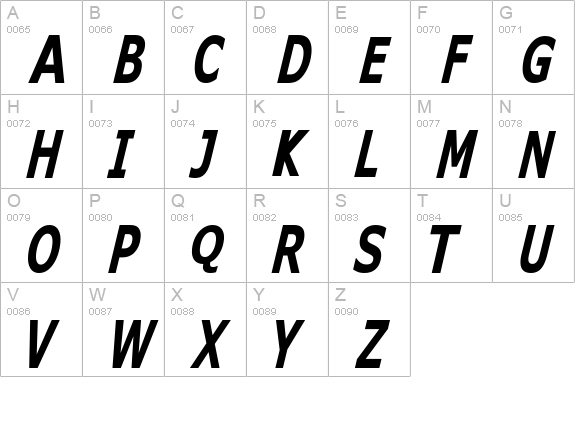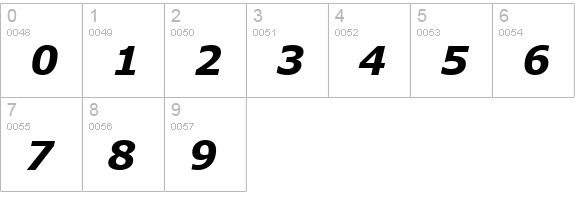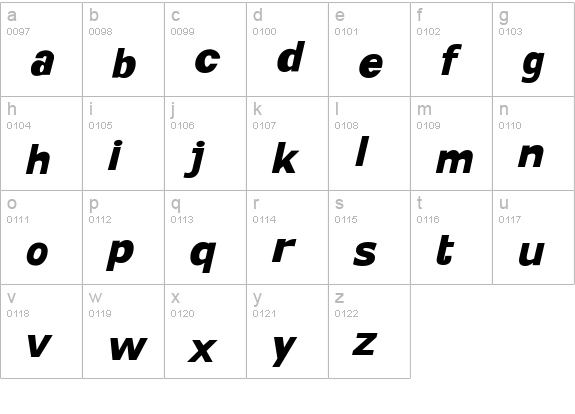
Kitty Katt Font Details
Introducing Kitty Katt font, a whimsical and playful typeface that will add a touch of charm to any design project. This delightful font captures the essence of a mischievous kitten, with its curvaceous and elegant letterforms. With its unique and quirky personality, Kitty Katt font is perfect for a wide range of applications, from children's books and invitations to branding and packaging designs. Its smooth lines and gentle curves create a sense of warmth and friendliness, making it an ideal choice for projects that aim to evoke a sense of joy and lightheartedness. But what sets Kitty Katt font apart is its availability for free! Yes, you read that right. This delightful font can be freely downloaded at FontsMarket.com. Embracing the philosophy that great design should be accessible to all, the creators of Kitty Katt font have made it easily available to designers, enthusiasts, and anyone in need of a touch of whimsy in their creations. Whether you're a professional designer or a hobbyist, Kitty Katt font offers endless possibilities to unleash your creativity. Its versatility is showcased through its extensive character set, including uppercase and lowercase letters, numerals, punctuation marks, and special characters. This ensures that you have all the tools you need to create captivating and eye-catching designs. So why wait? Let Kitty Katt font be your go-to choice when you want to infuse your designs with a dash of playfulness and charm. Download it for free at FontsMarket.com and let your imagination run wild. With Kitty Katt font, your projects will come to life with a delightful feline touch that is sure to captivate hearts and minds.